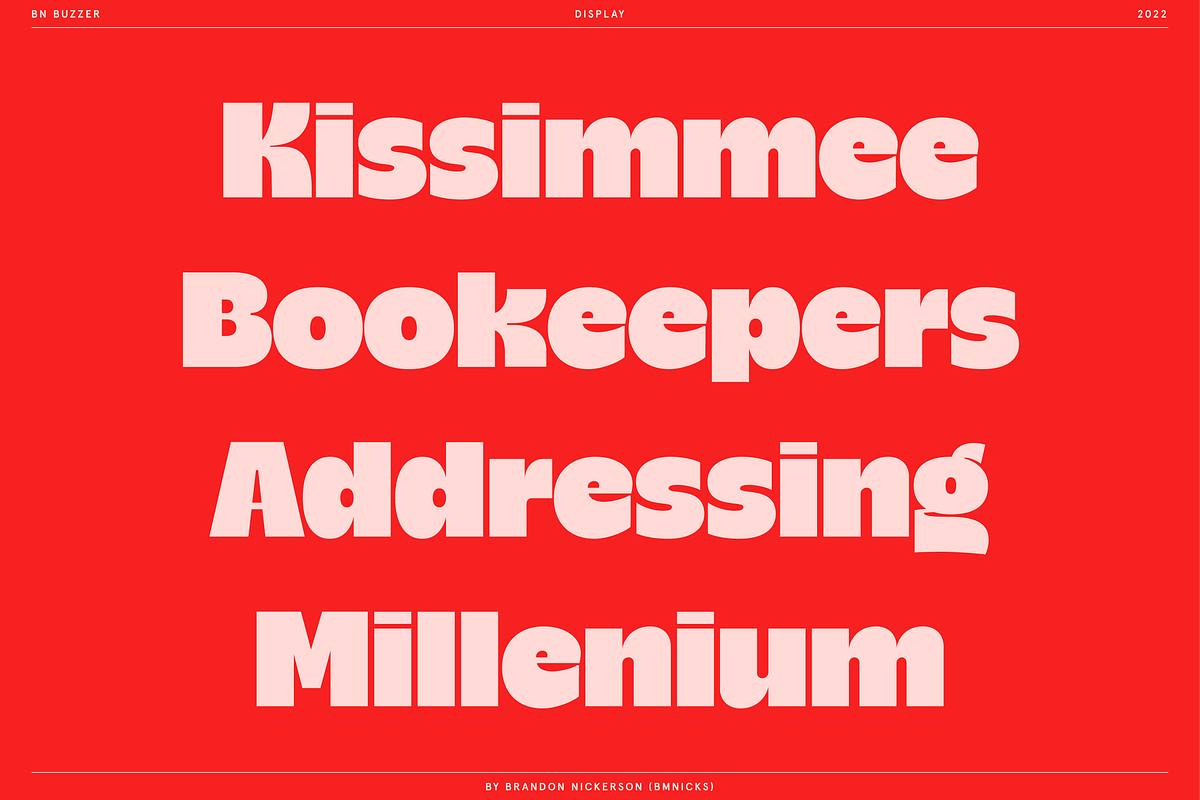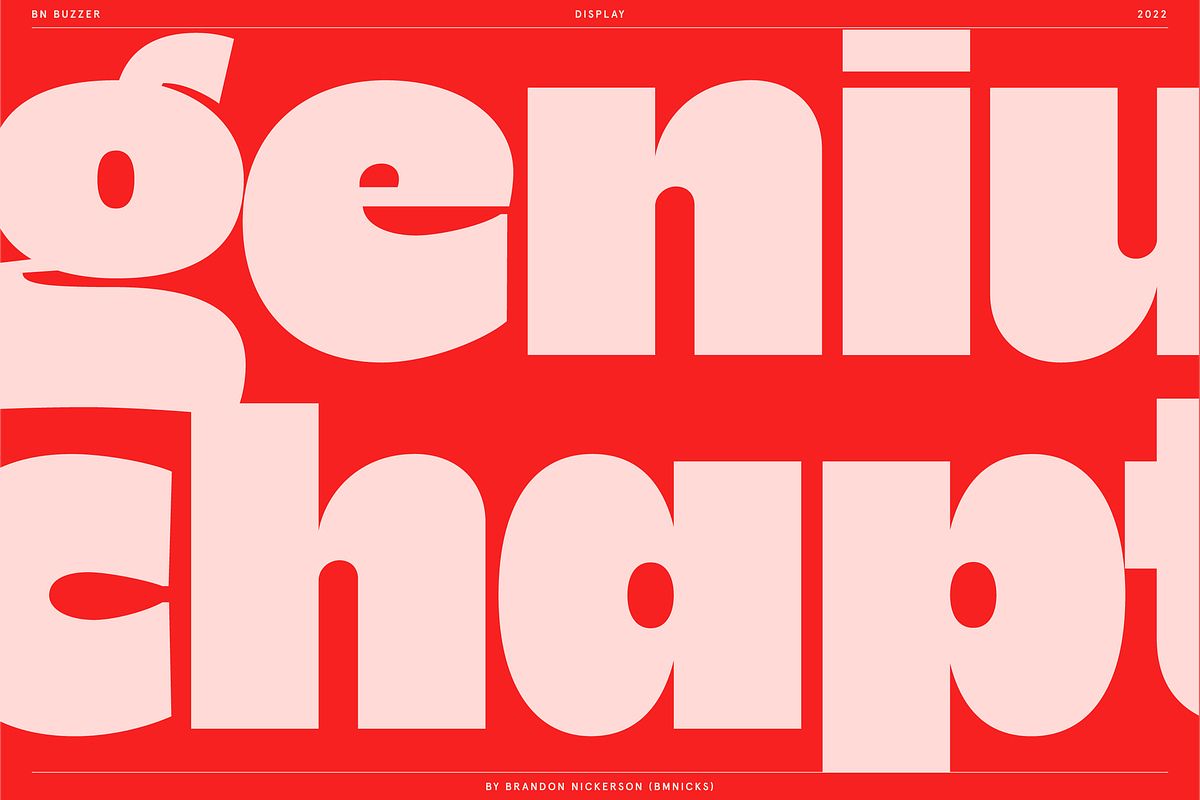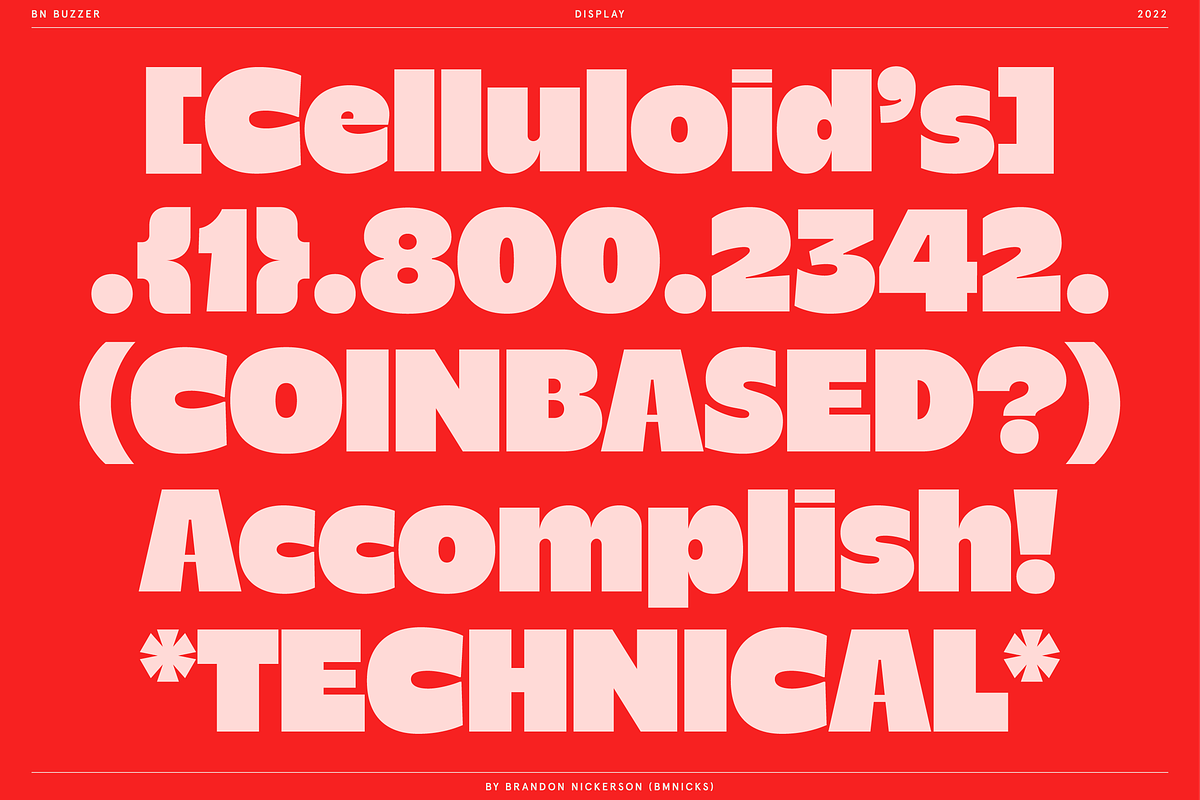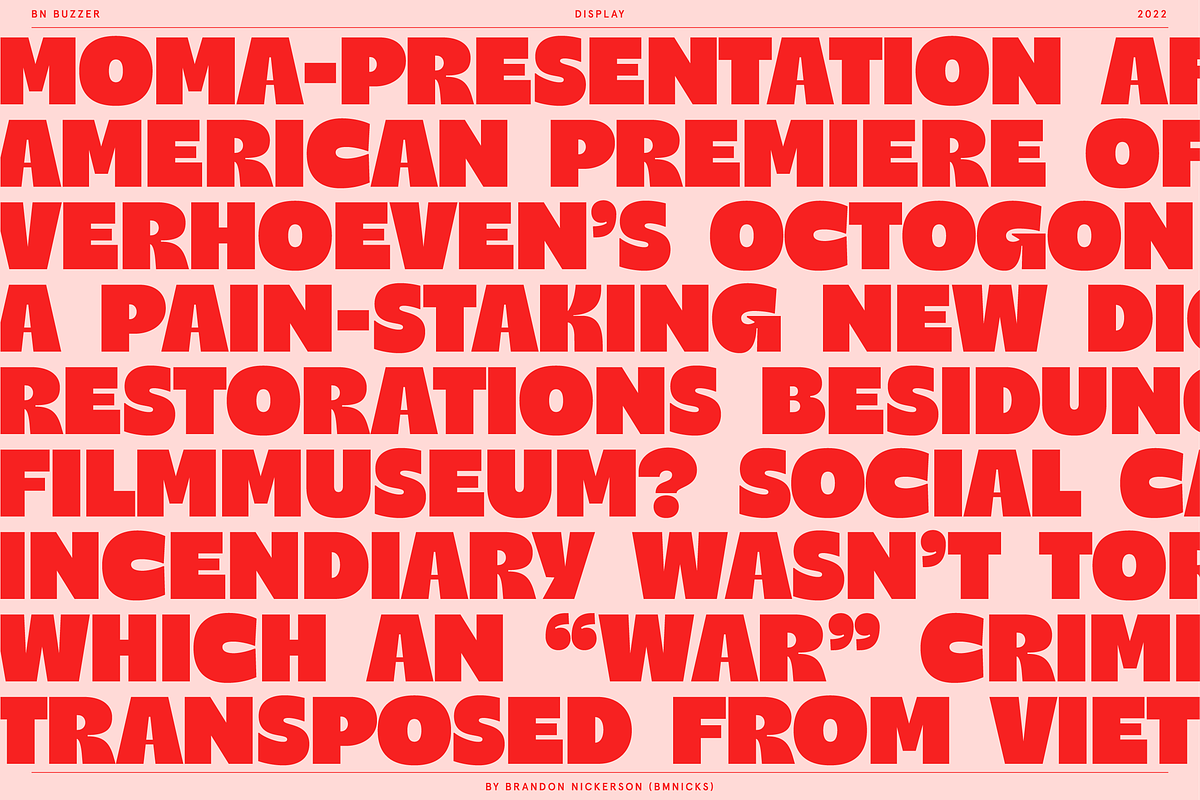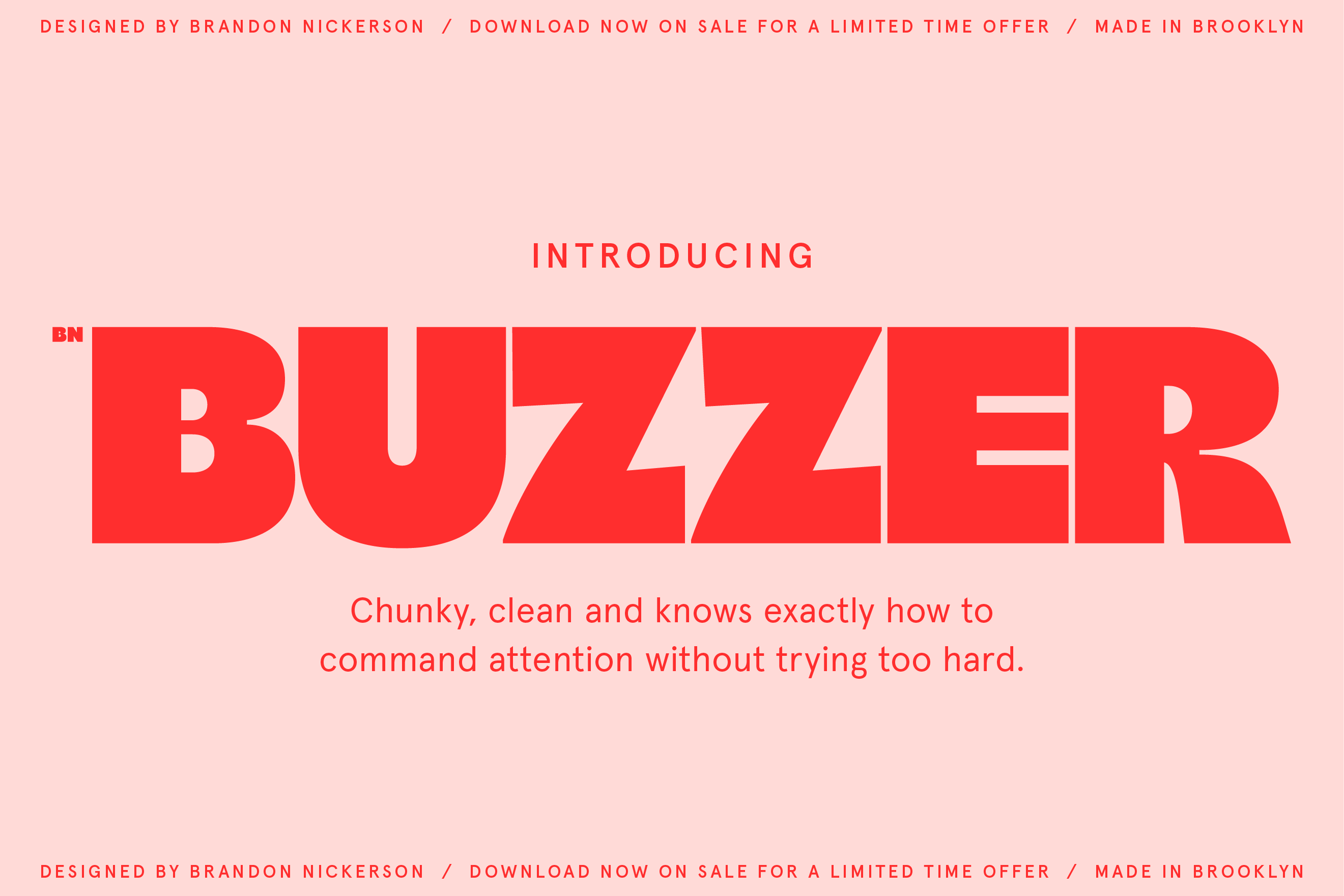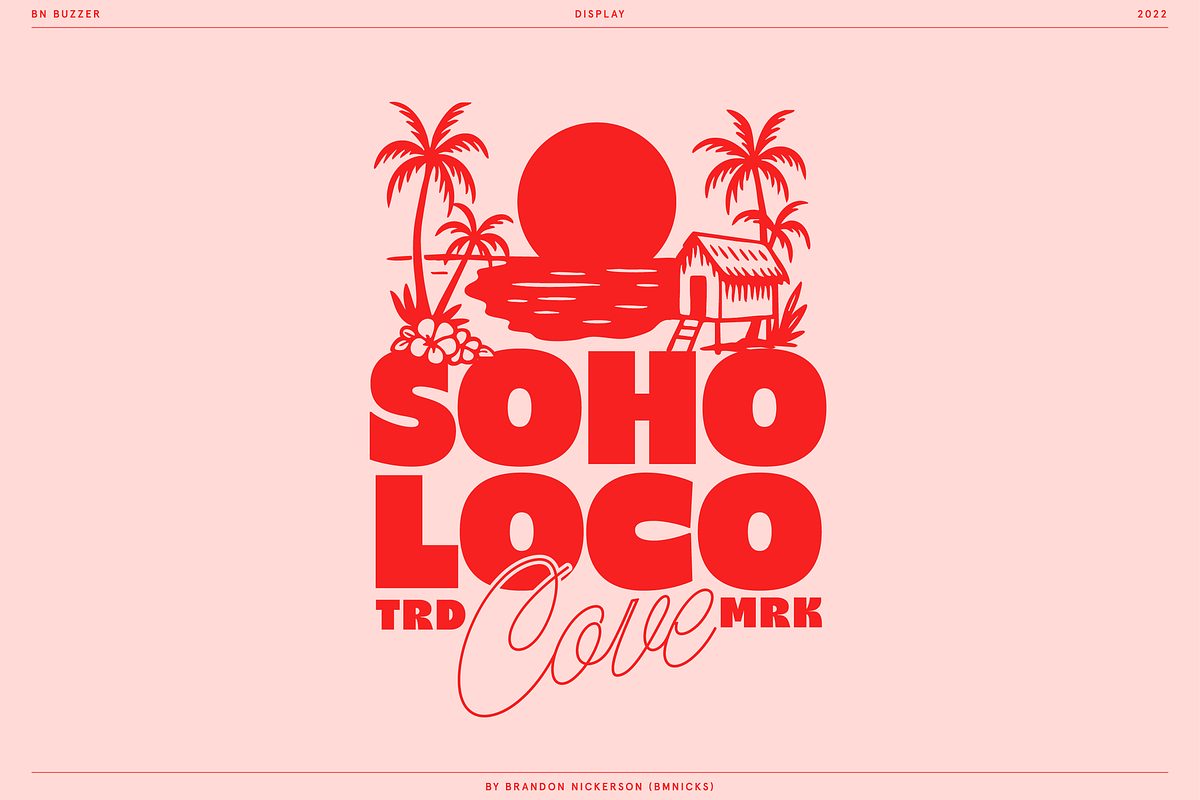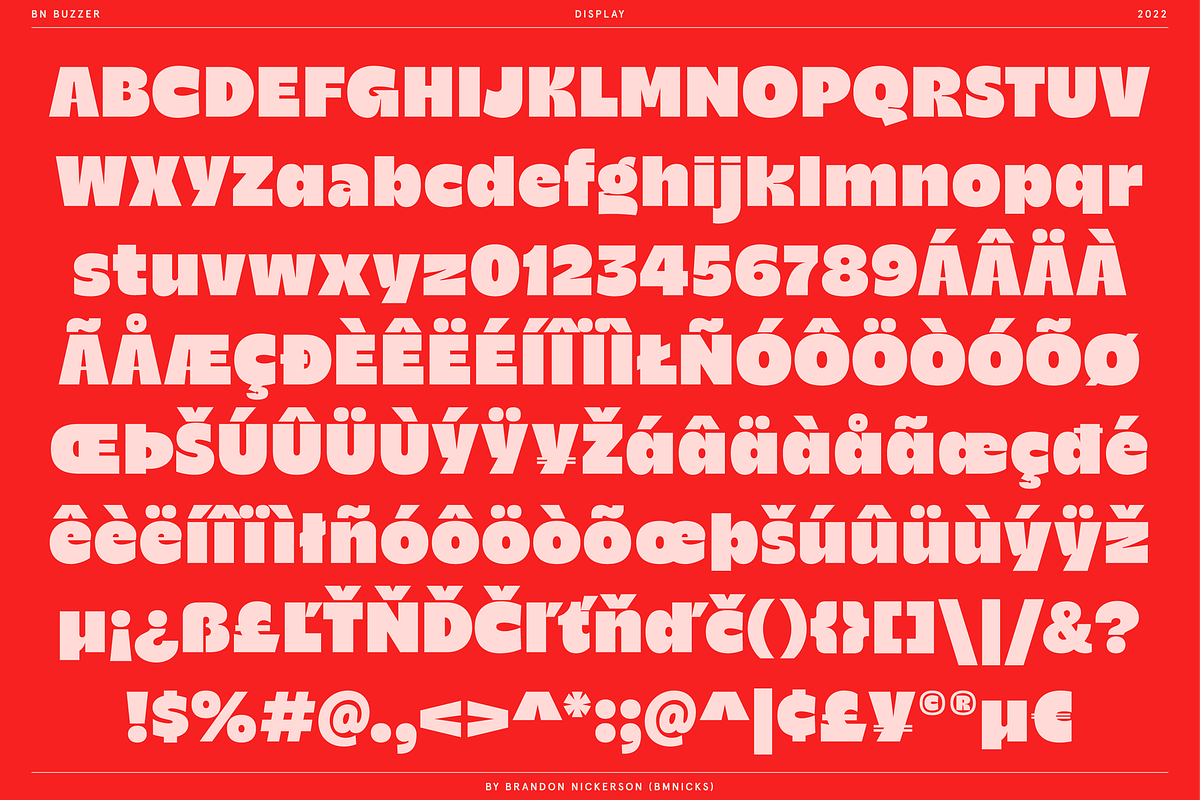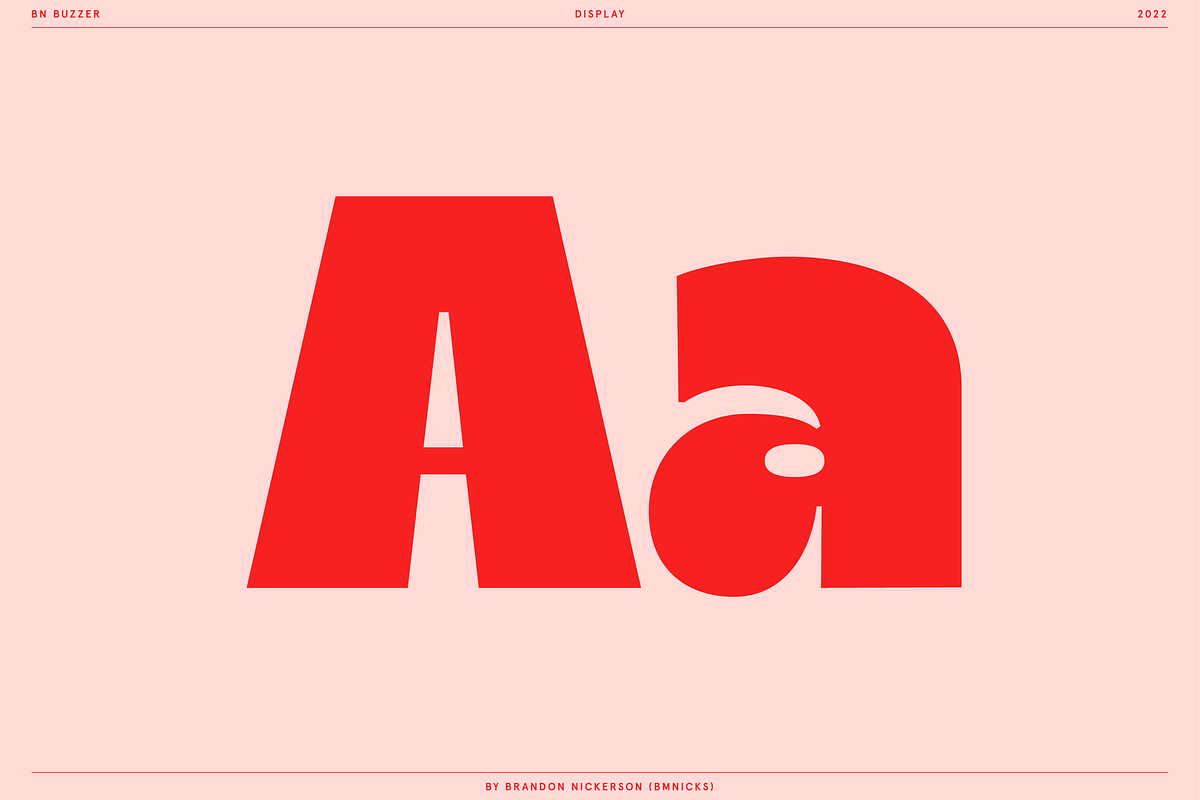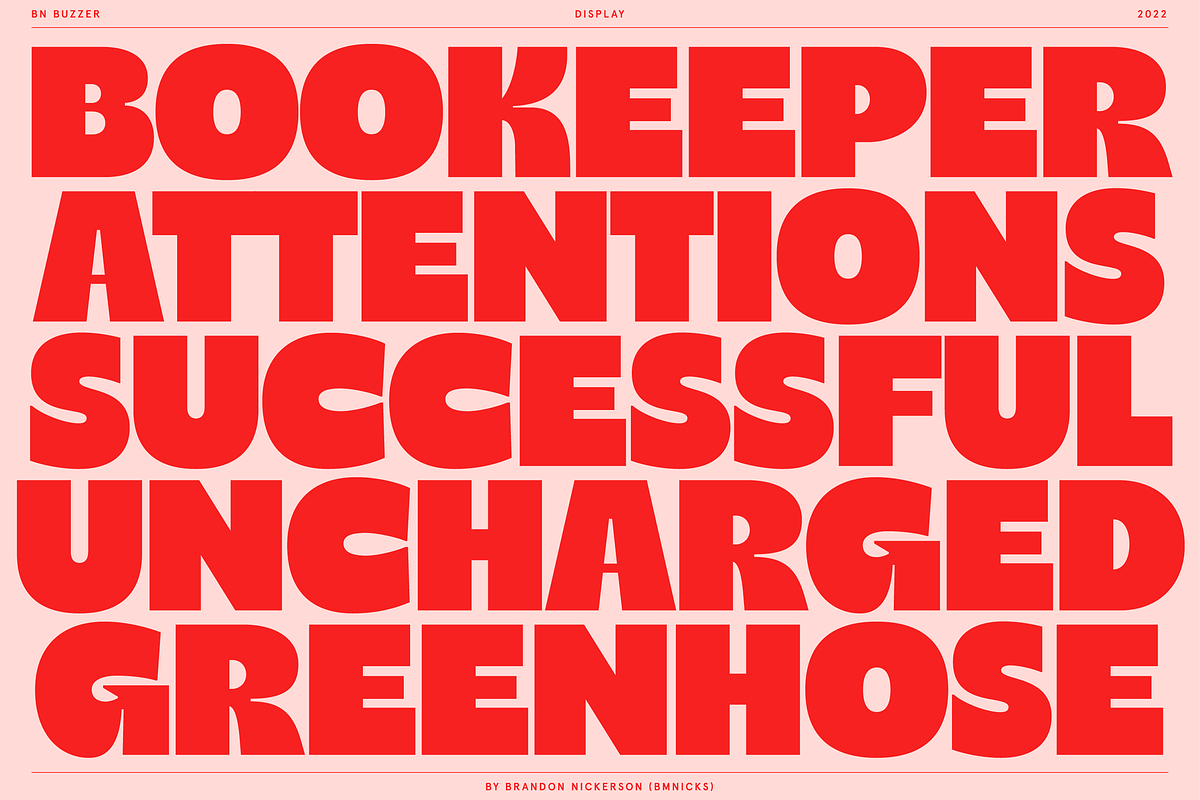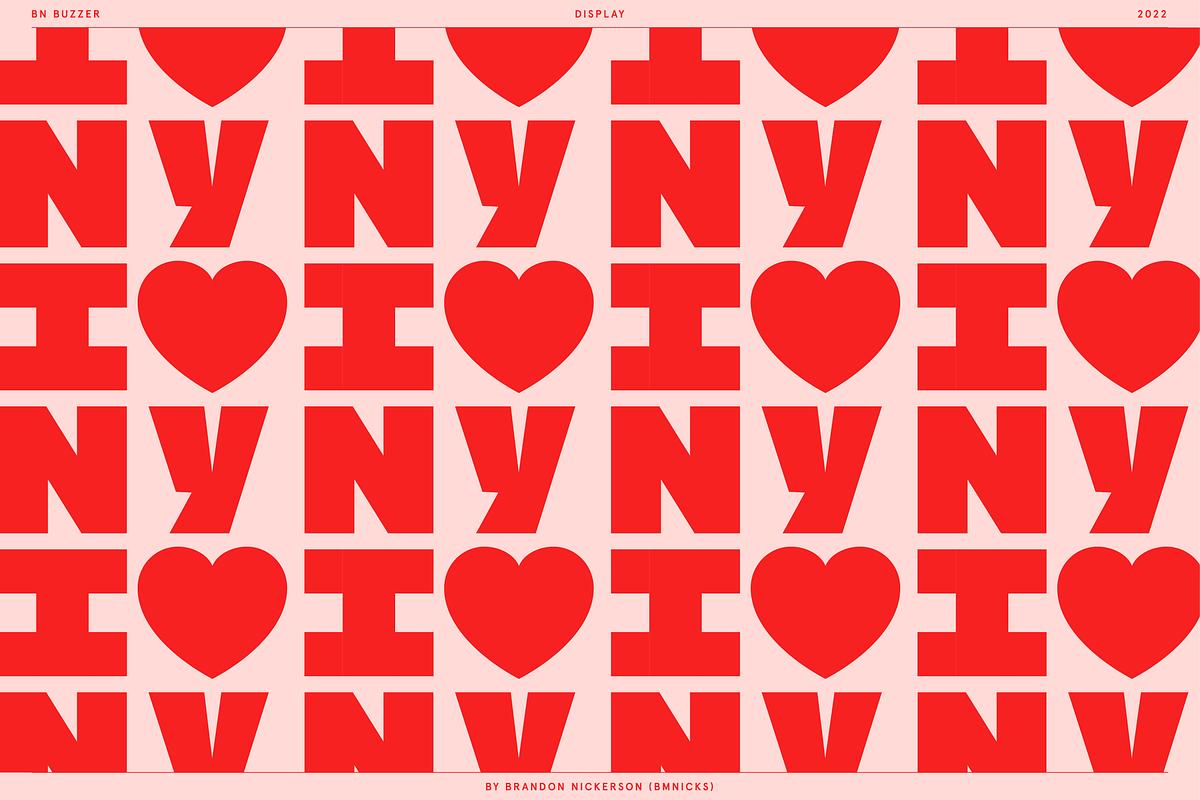
BN Buzzer Sans Serif Display Font
BN Buzzer – Bold Retro Display Typeface
BN Buzzer is a heavyweight display typeface built for designers who want impact without chaos.
Its inflated curves, confident proportions, and tightly controlled rhythm give it a distinct retro energy, while still feeling sharp enough for contemporary branding.
Ideal Use Cases
Branding & logos
Fashion and culture projects
Album covers
Packaging systems
Editorial headlines
Event posters
Social campaigns
Merchandise graphics